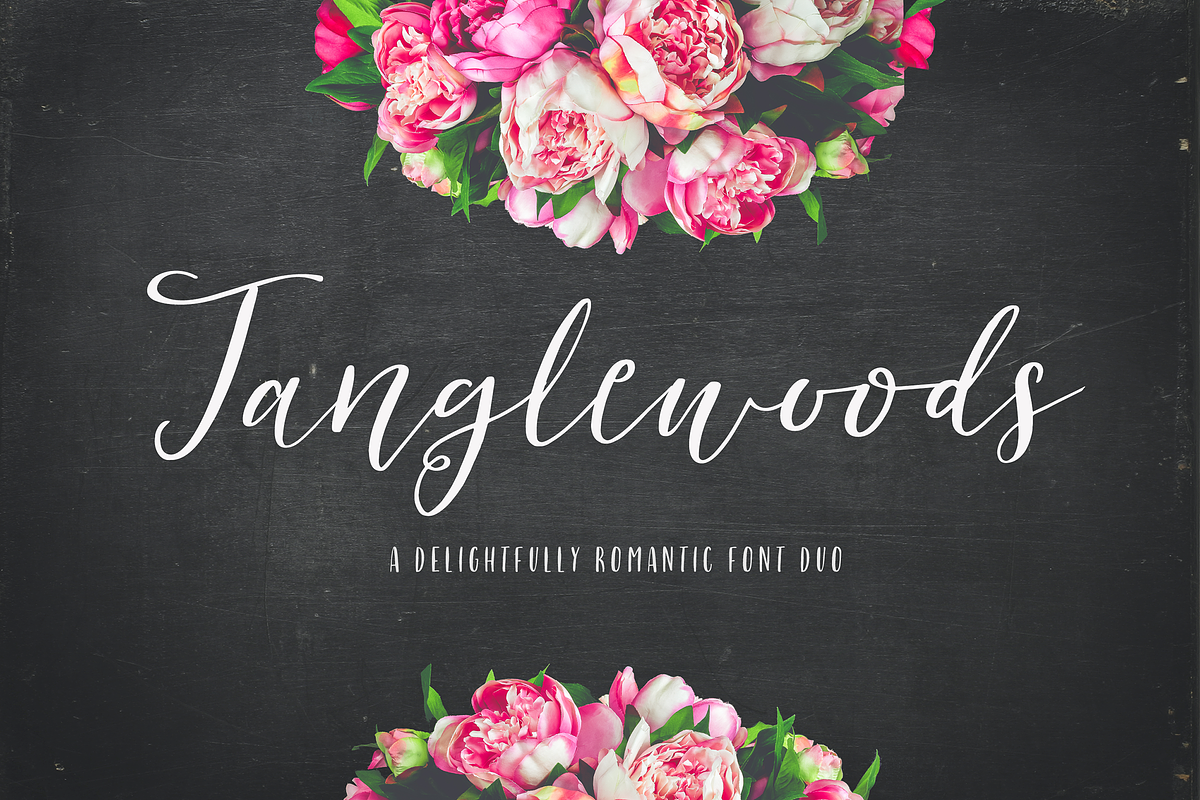
Tanglewoods Script Font Free Download is an elegant and flowing handwritten script typeface, designed to add a sophisticated, personal touch to your designs. With its smooth curves, natural feel, and graceful strokes, this font is perfect for invitations, wedding designs, branding, logos, and social media graphics.
Its artistic and fluid appearance brings warmth and charm, making it ideal for projects that require a more intimate or stylish aesthetic.